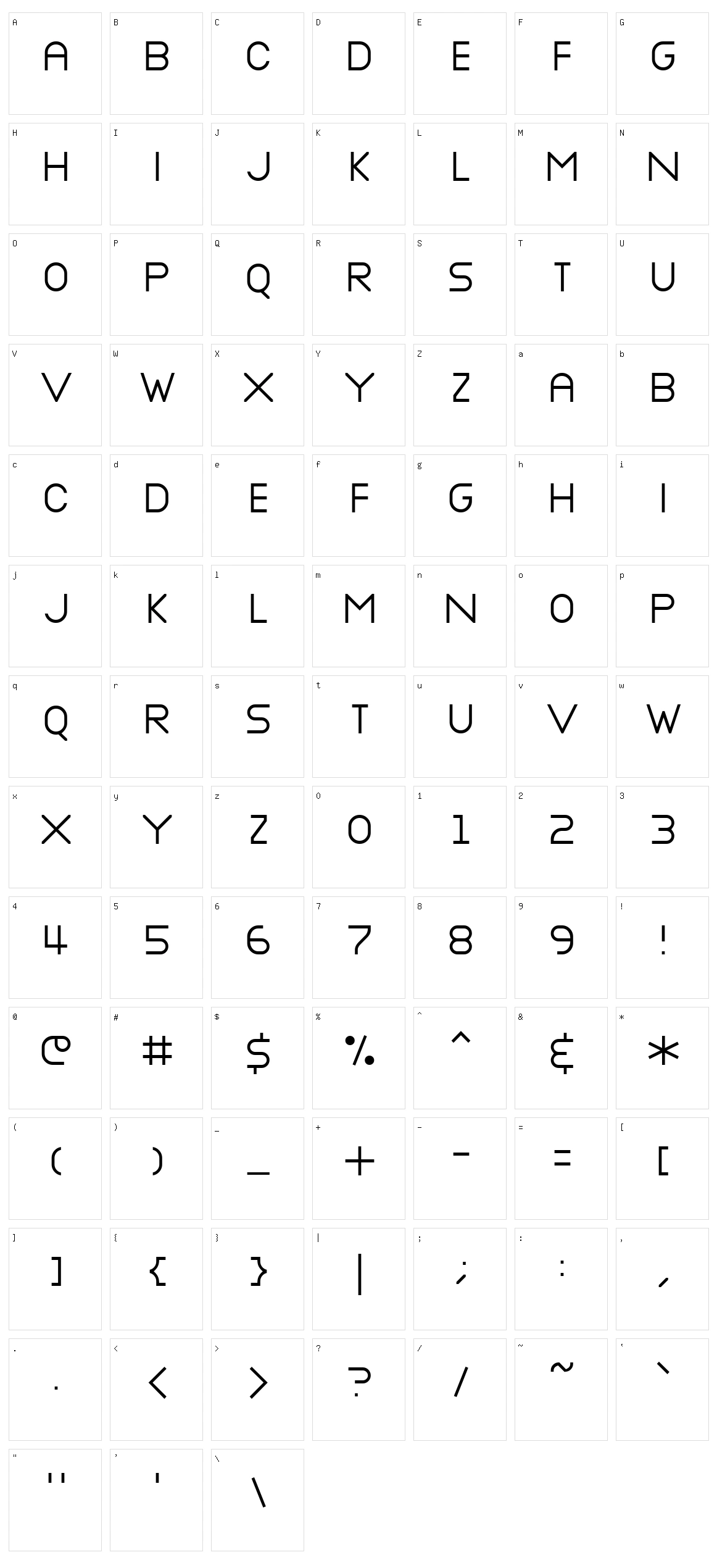
The free font Nottke is carefully designed by Grudnuk, showcasing a thoughtful balance of creativity and usability and falls under the Sans serif font style. When you download the ZIP file, it contains only 26.65 KB of font files, making it lightweight and quick to download. Please review the license details below to understand permitted usage and distribution rights. If license information is not available, we recommend using this font for personal projects only or contacting the author directly for commercial usage permissions.